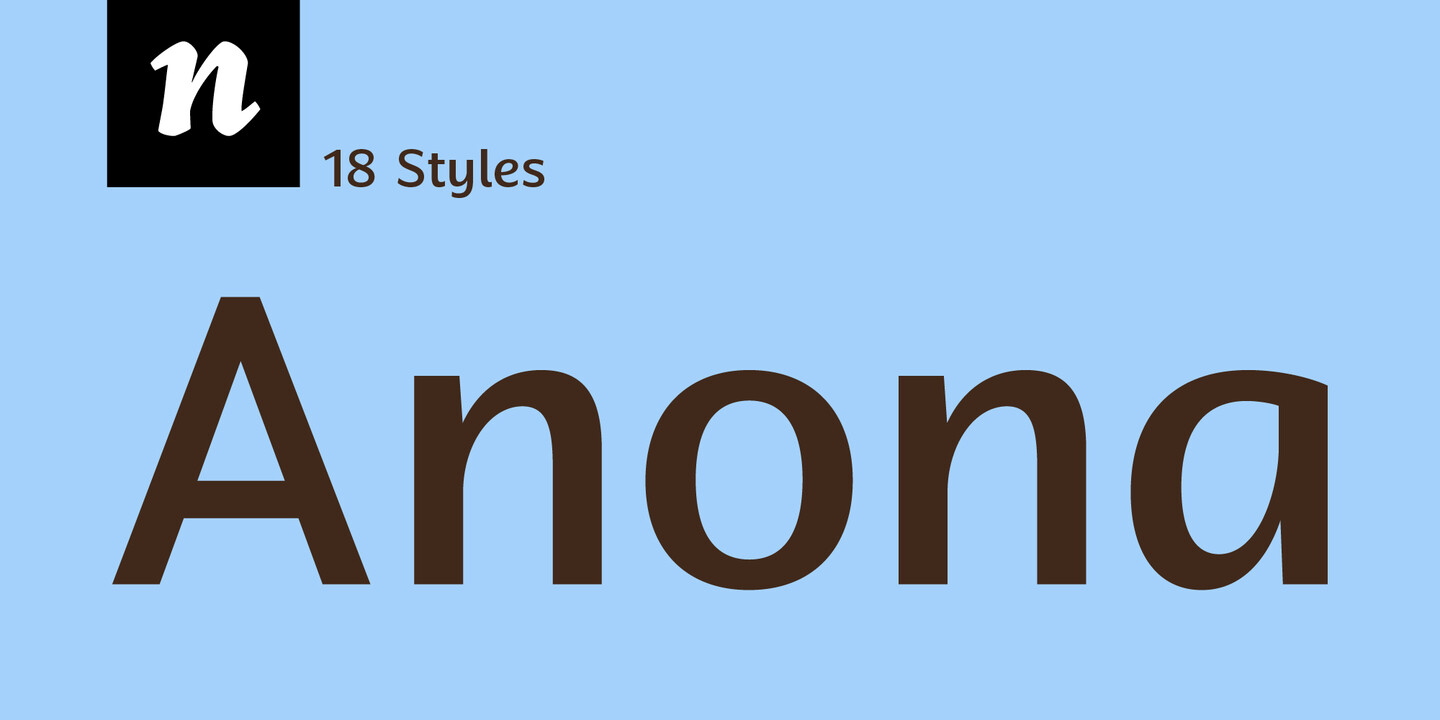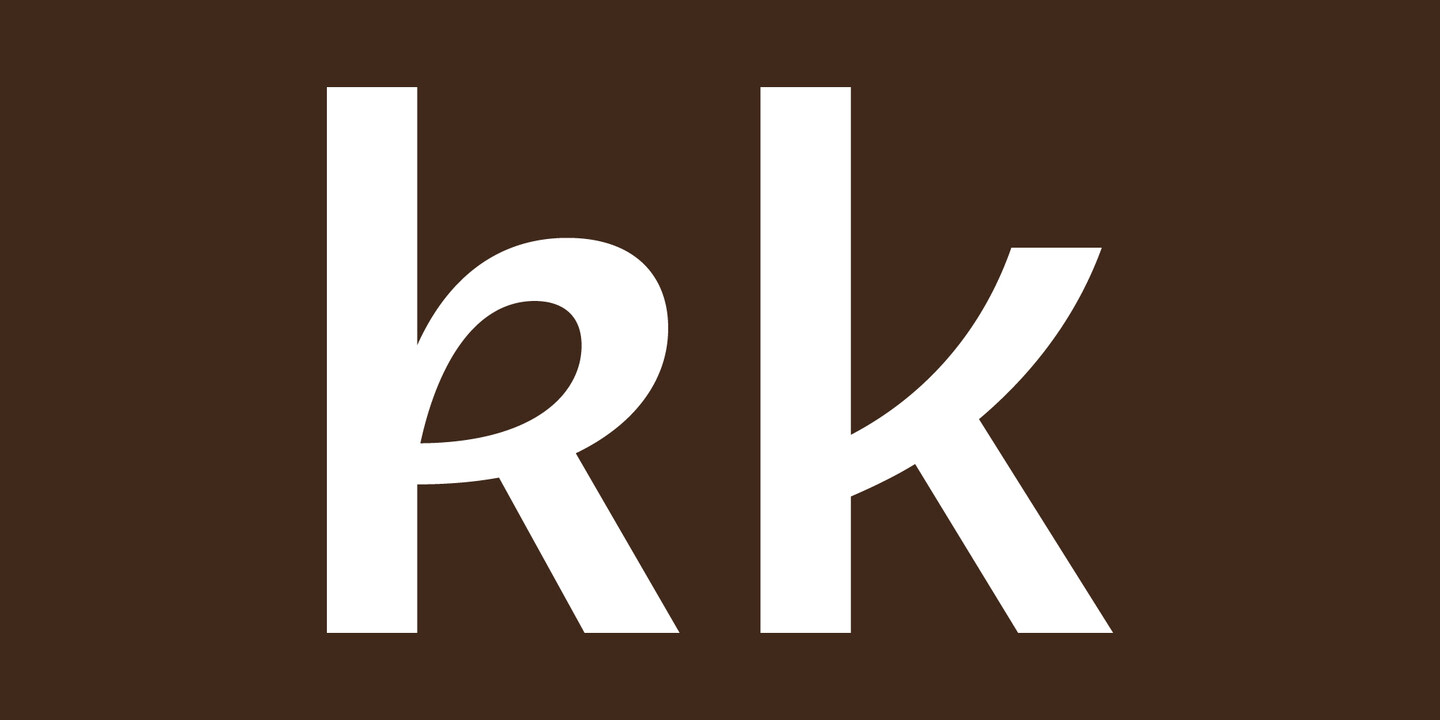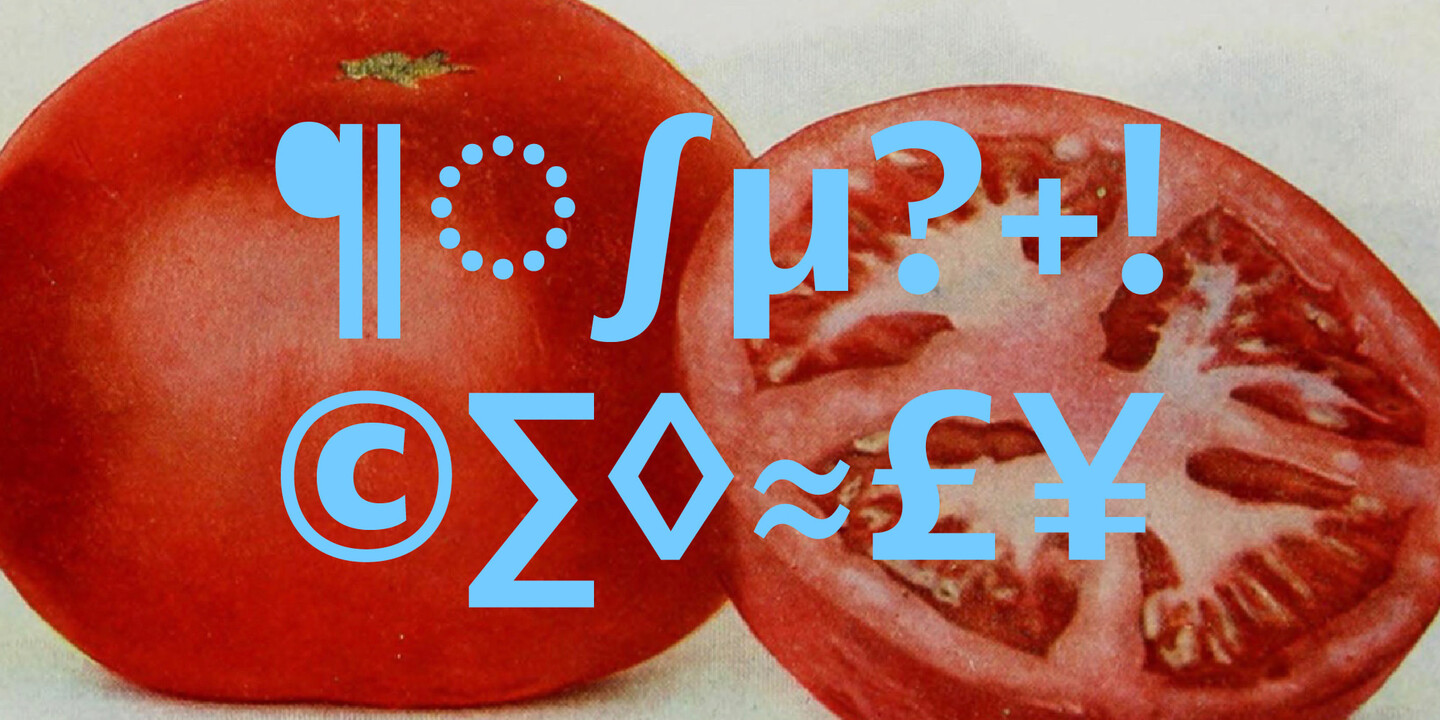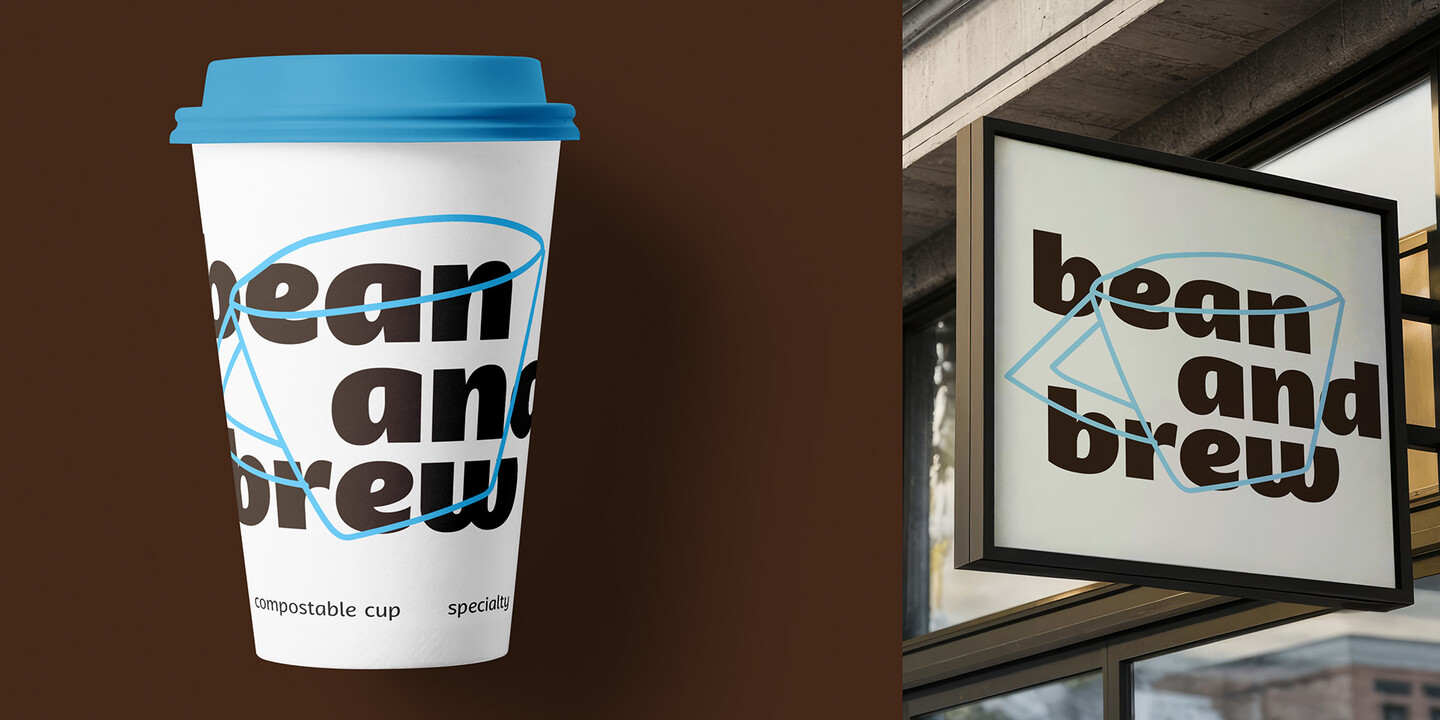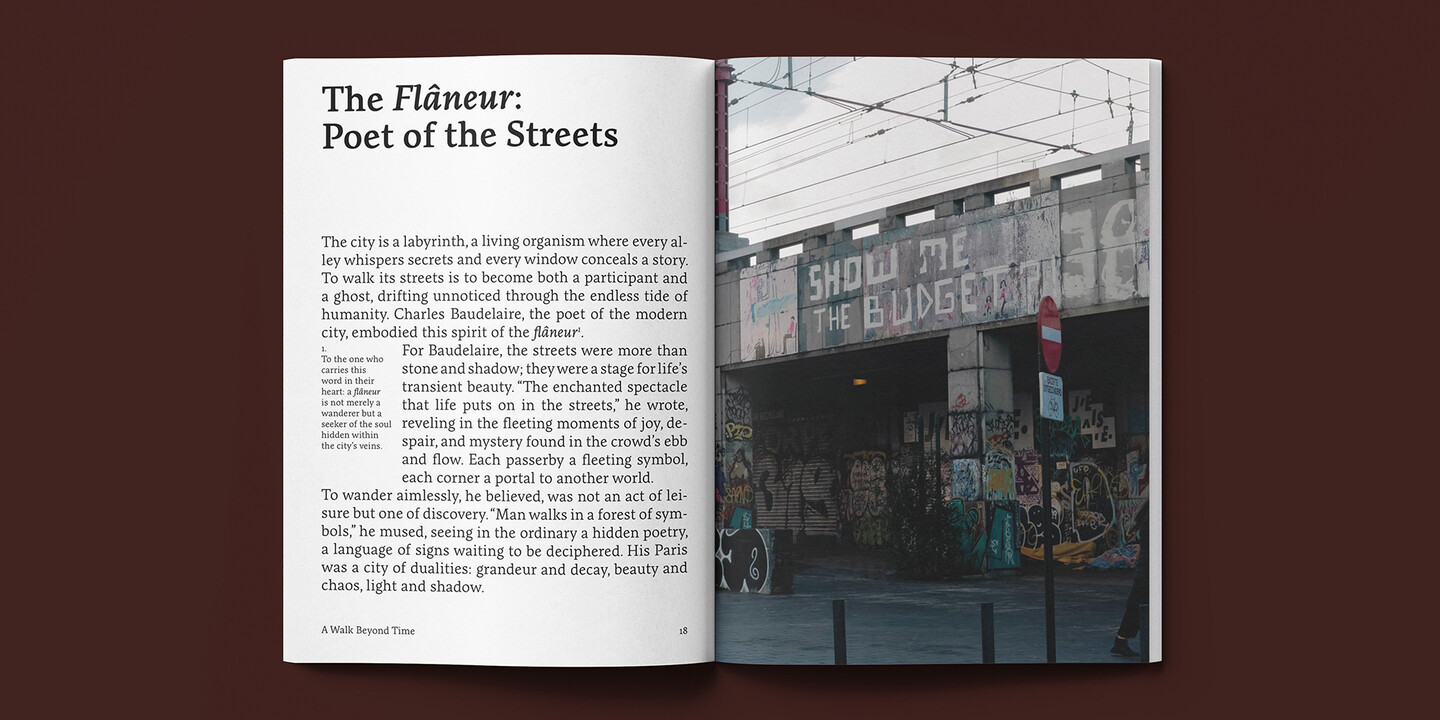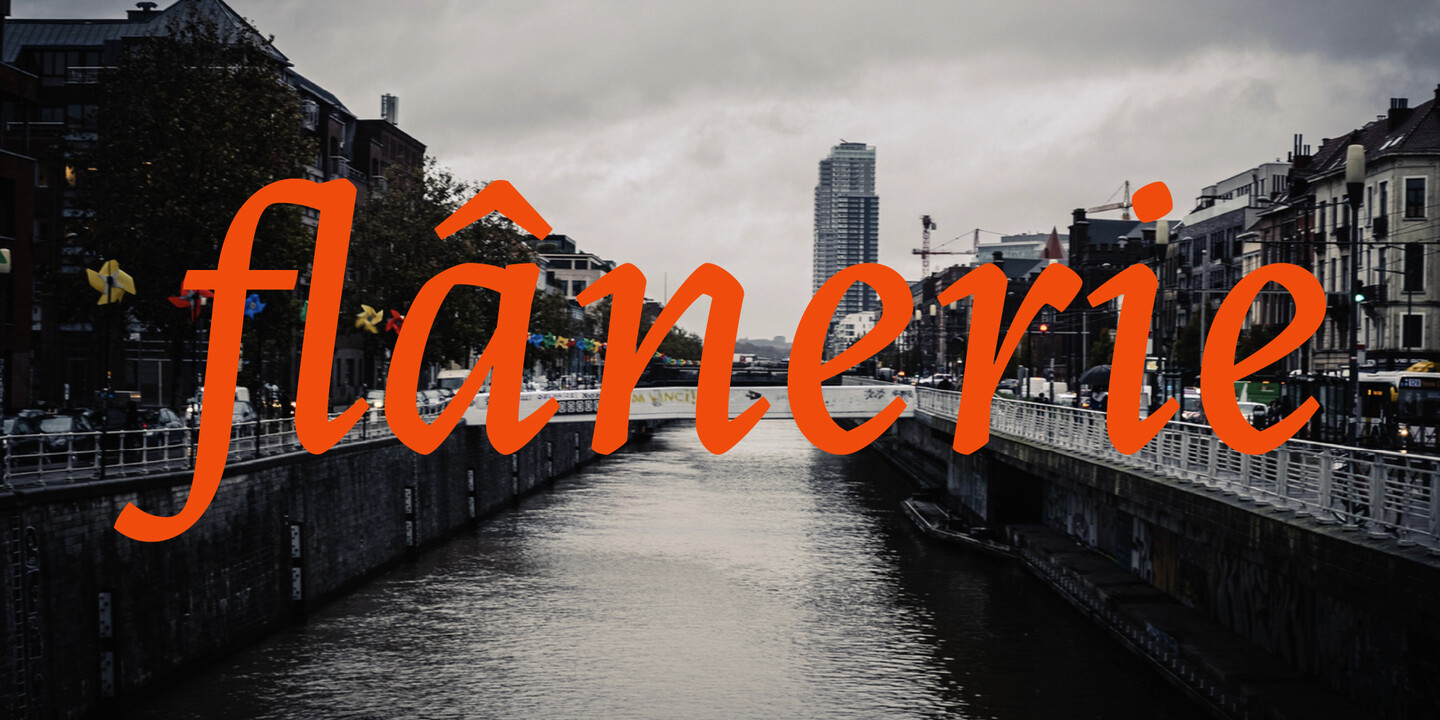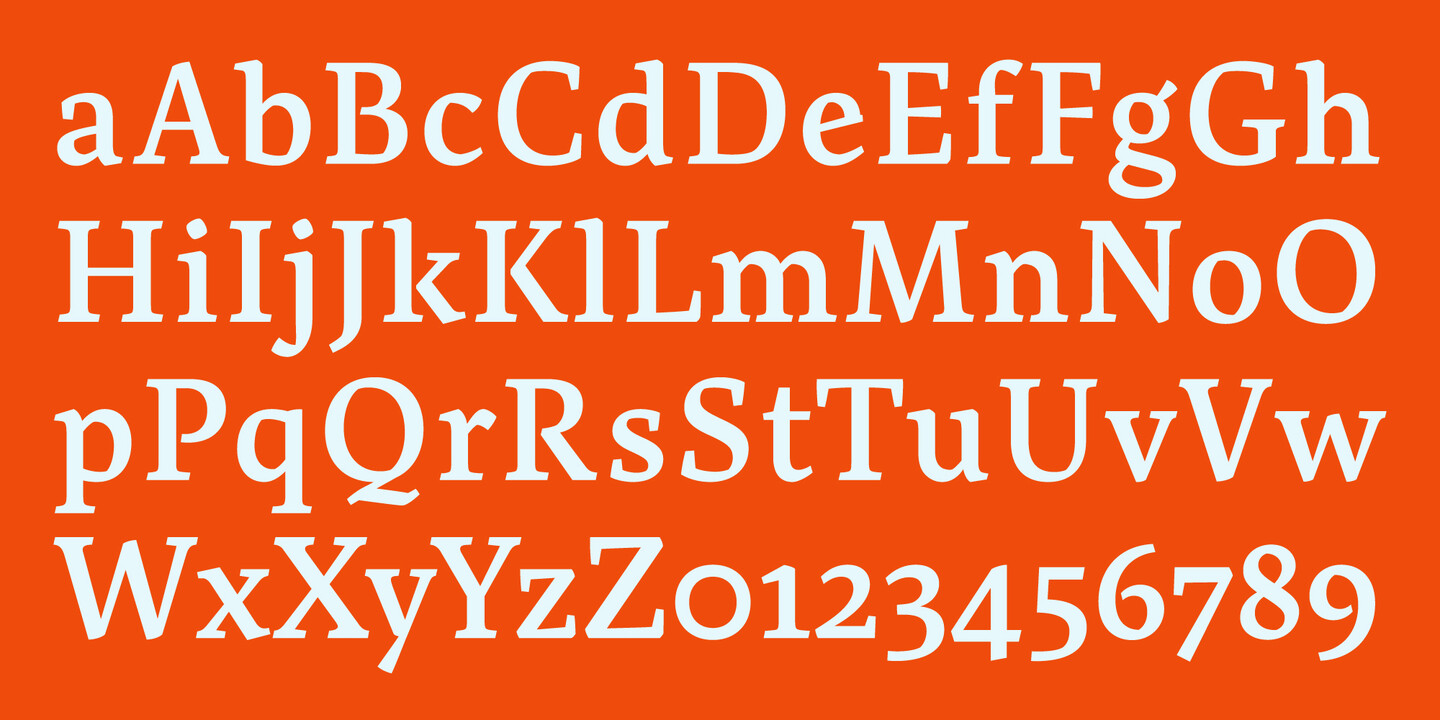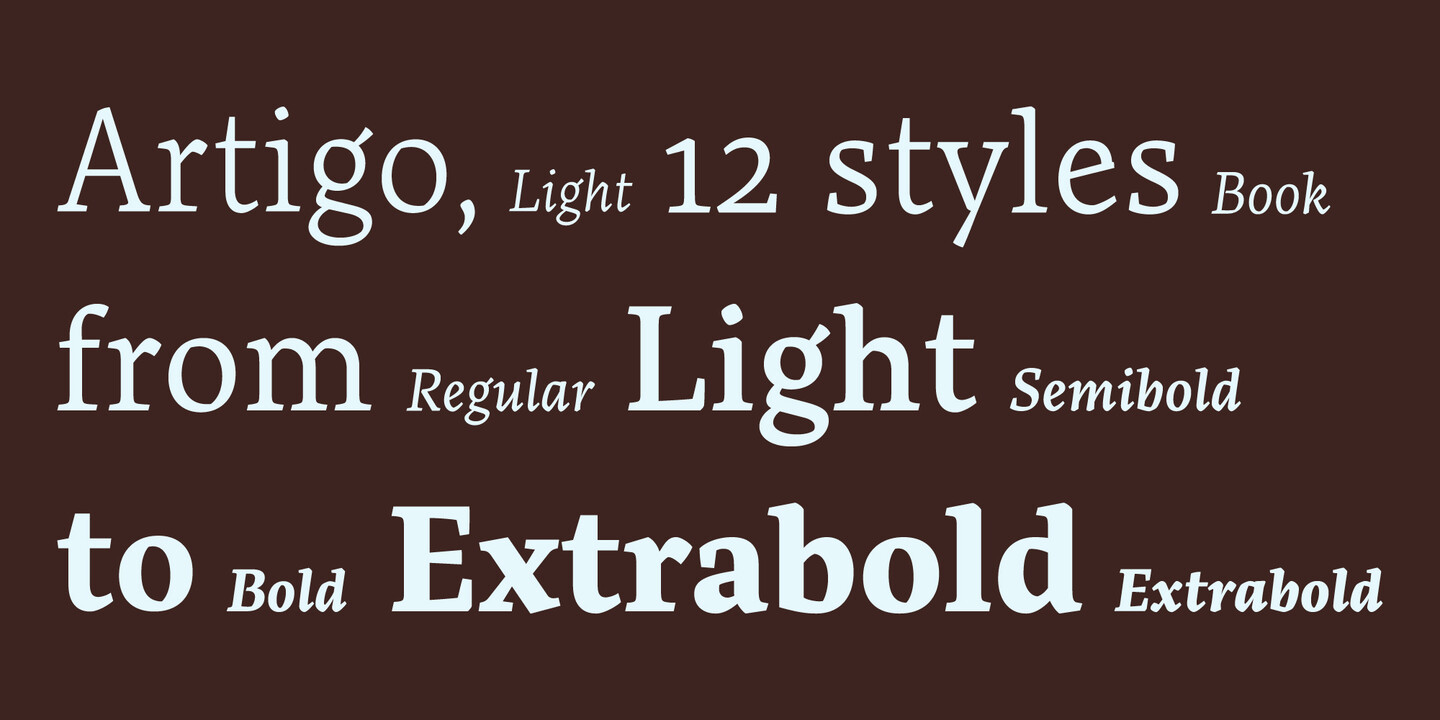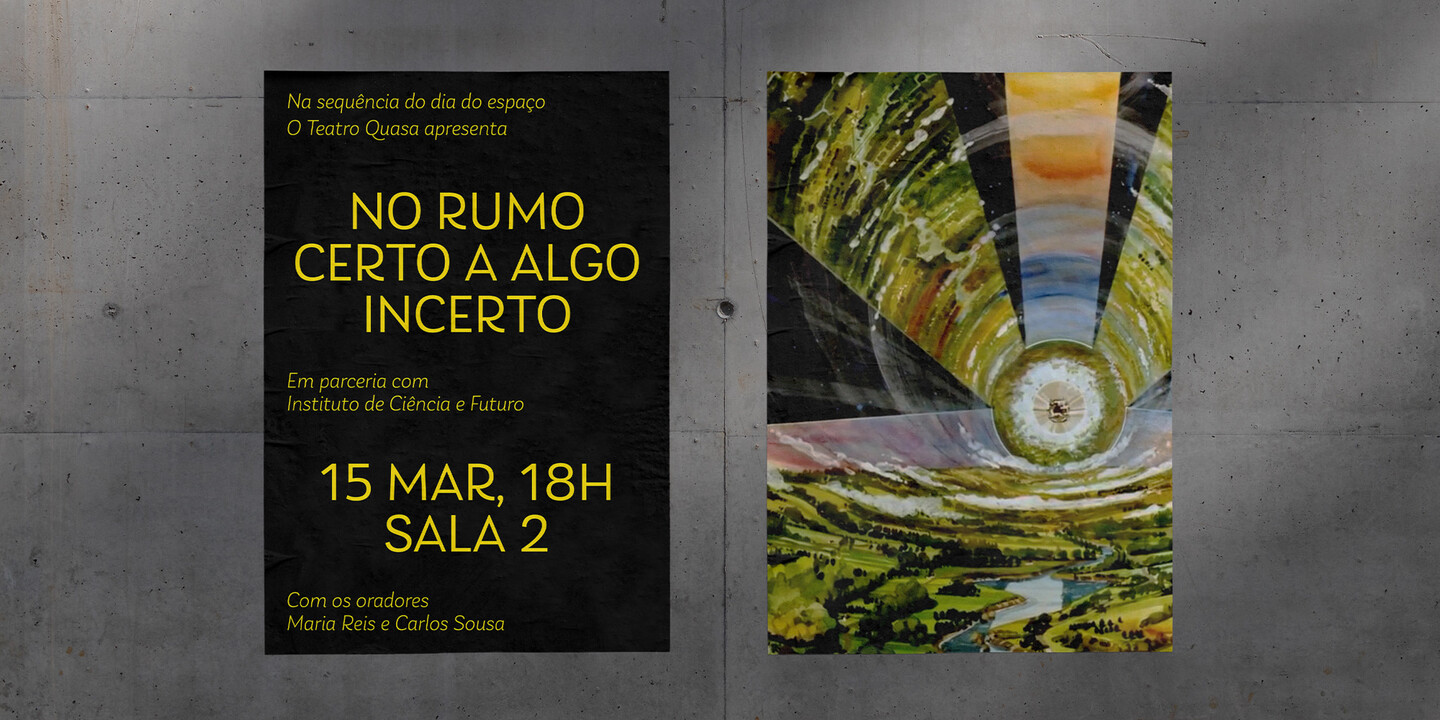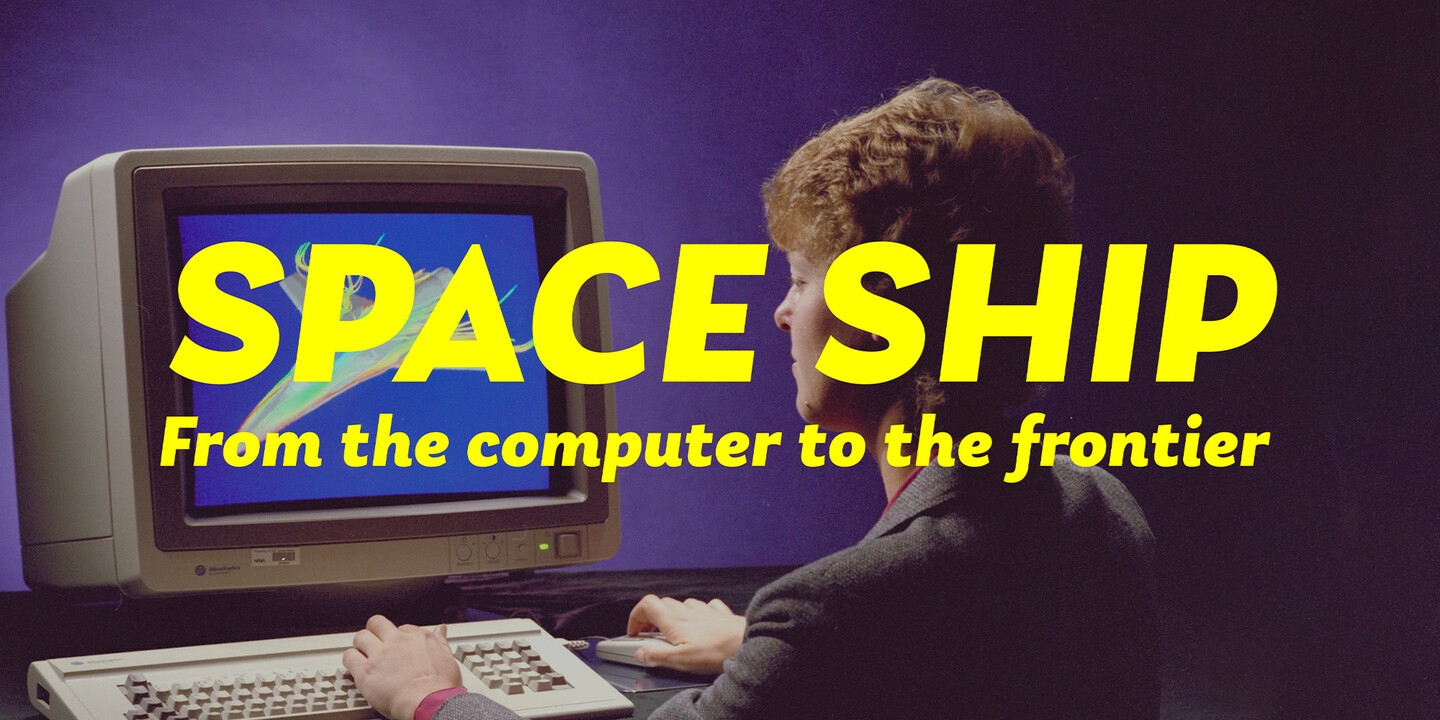
Fonts from Nova Type.
Nova Type Foundry, led by the multi-award-winning type designer Joana Correia, crafts unique, expressive fonts that bring character and emotion to design. With a focus on creativity and collaboration, our typefaces blend precision with warmth, offering a distinct voice for your brand. Discover fonts that enrich your visual identity with warmth and style.
Anona brings the upright italic to fruition and shows the handwriting shapes in a sans serif great to use in packaging and branding. Anona is an upright italic sans serif typeface perfect for packaging and playful identities. Explore the stylistic sets to see all the different shapes. Fruity and friendly upright italic sans serif come to brighten your projects. A warm and friendly sans serif will work for your identity. It has a complementary slanted version.
Artigo is an old style inspired typeface system for text. It was inspired by the handwriting aspect of the first roman types but it intends to be a contemporary interpretation. Its abilities are in small text with personality. The italics capture a lot of its dynamic feeling even more expressive on the display version that stands as the most handwritten one. It gives text a lot of personality and great readability.
Laca Pro now supports Greek and Cyrillic scripts. The letter shapes capture the playful spirit of Laca. The added language support brings even more usefulness for the use of Laca for branding, editorial and other projects.
Communication is one of our passions, by supporting other scripts we want to create better communication.
Many font companies are run like mere business machines, but our aim at Nova Type is to be an independent font foundry that cultivates creativity, collaboration, and education. Our mission statement is “Cultivating sunny fonts for warm humans”.
Joana Correia
Joana Correia is a multi-award-winning type designer and founder of Nova Type Foundry, established in Porto, Portugal in 2018. She holds a background in architecture and graphic design, with an MA in Typeface Design from the University of Reading, UK, which she completed in 2011. Correia's work combines traditional and modern elements, creating expressive fonts that infuse content with emotion. She has designed notable typefaces like Artigo, Laca, Anona, and Loretta. Nova Type Foundry focuses on cultivating creativity, collaboration, and education, offering a range of services including retail typefaces, custom fonts, language extensions, and consulting. Correia previously taught type design for seven years but now dedicates her time to designing and running the foundry.